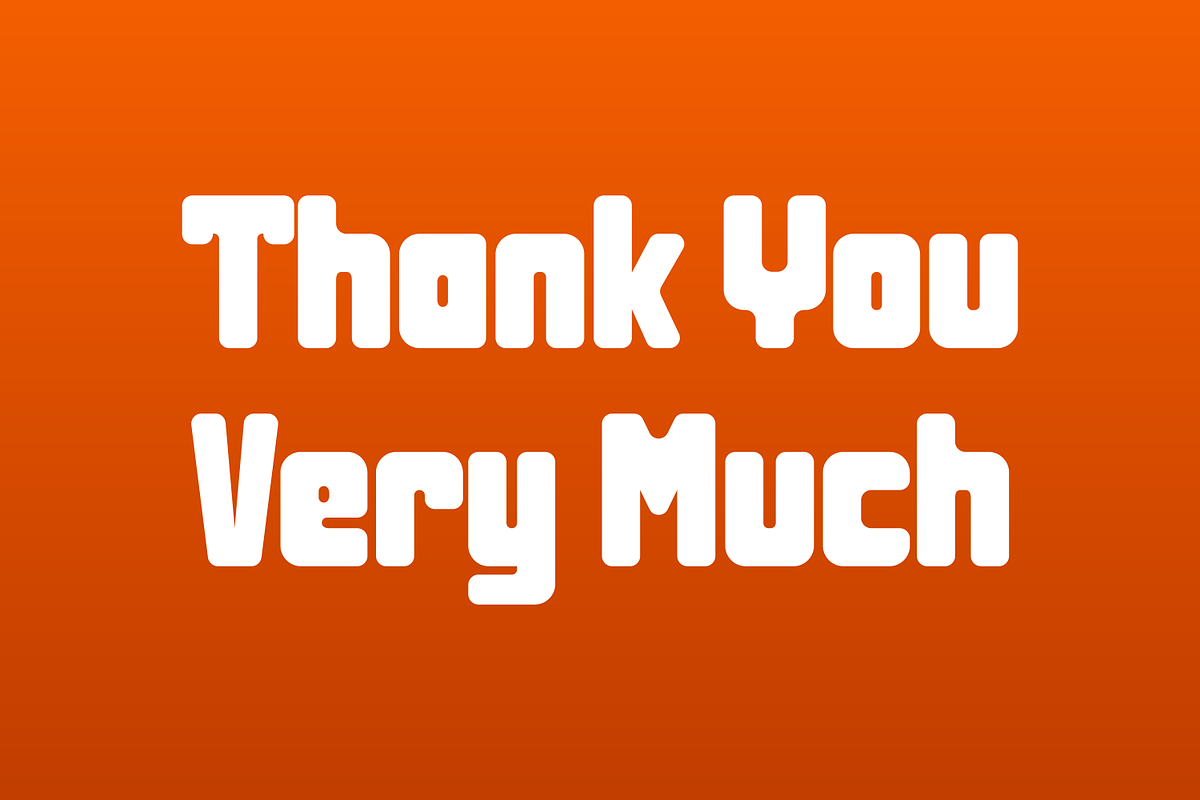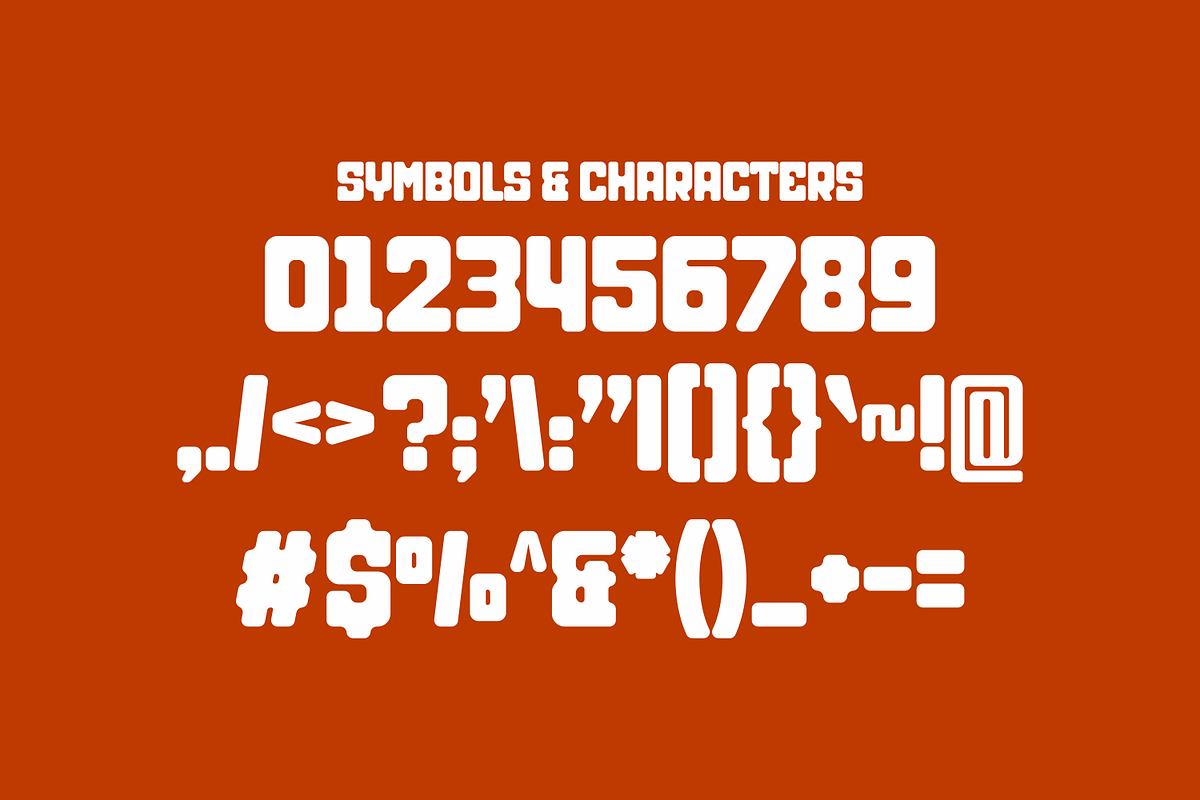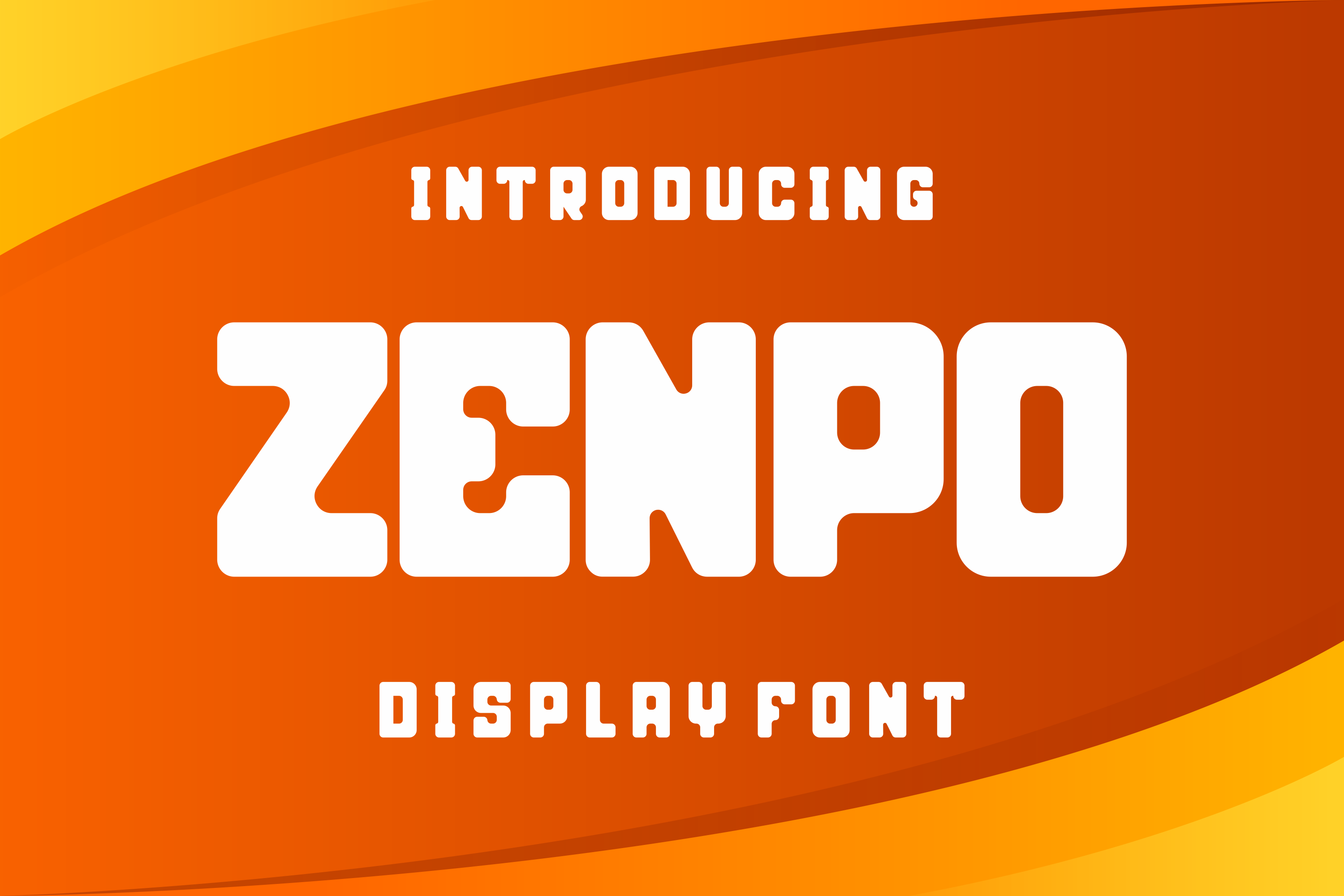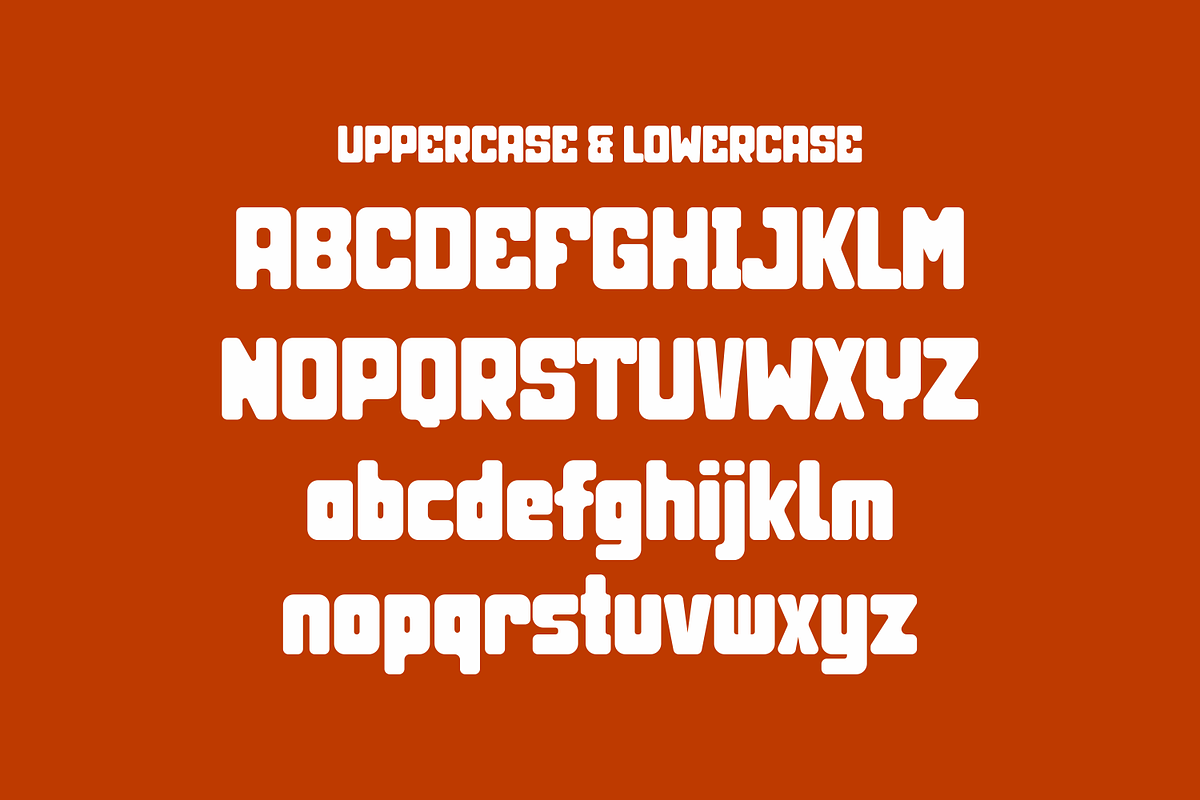
Zenpo - Bold Font
Zenpo - Bold Font Perfectly suited on print/screen. it’s perfect for Branding, name card, poster, logo, magazine, cover, banner, t-shirt and headers, or even large-scale artwork.